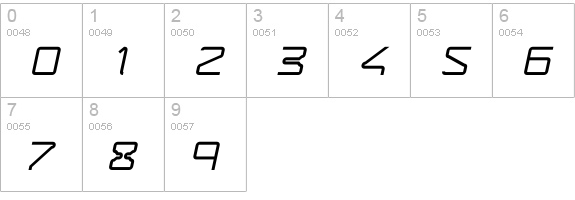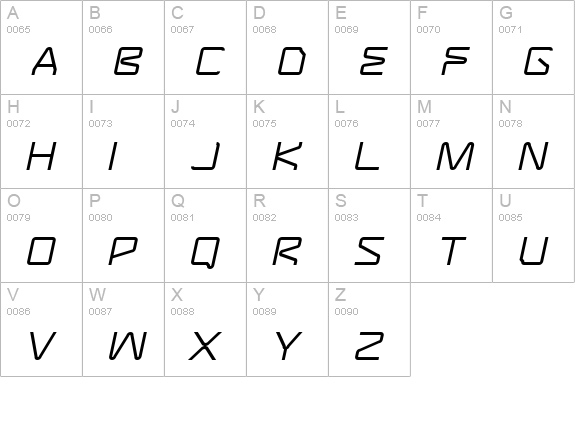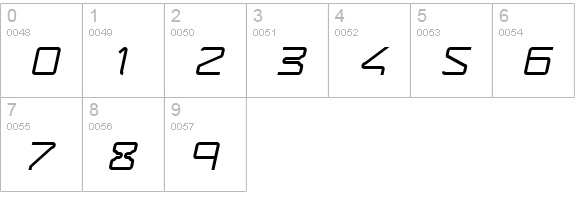
AssemblerOblique Font Details
AssemblerOblique font is a sleek and modern typeface that brings a touch of sophistication to any design project. With its sharp angles and slanted appearance, this font exudes a sense of energy and creativity. The unique oblique style adds a dynamic flair to text, making it perfect for headlines, logos, and other display purposes. What sets AssemblerOblique font apart is not only its striking design, but also the fact that it is available for free download at FontsMarket.com. This means that you can enhance your projects with this eye-catching font without breaking the bank. Whether you're working on a website, branding materials, or any other creative endeavor, AssemblerOblique font is sure to make a bold statement. Download it today and see for yourself the impact it can have on your designs.